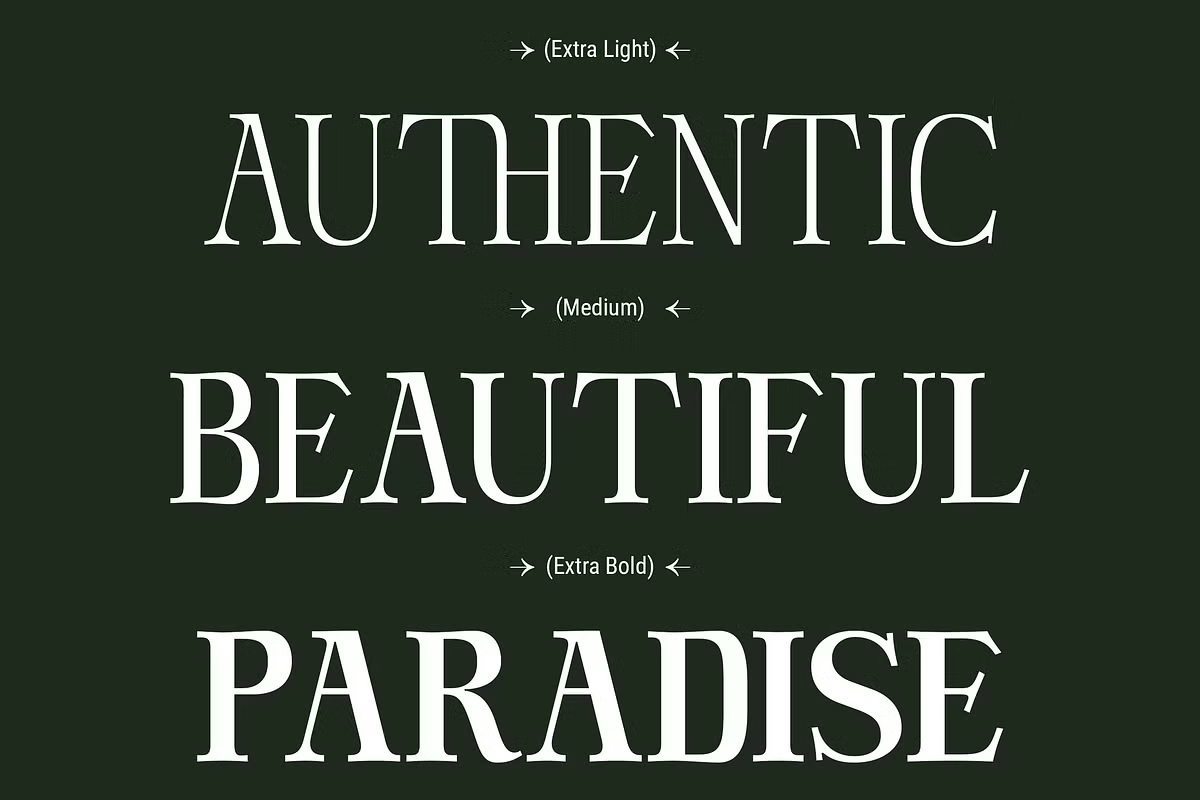
DT Hebrinks Font
DT Hebrinks is a charming and graceful serif font, crafted with precision and dedication. Inspired by the idea of “new beginnings,” this typeface embodies quality and elegance, the result of a meticulous and time-intensive design process.
With its meaningful name and versatile character, DT Hebrinks adapts seamlessly to a wide range of design projects, making it a top choice for creatives. Elevate your innovative concepts with this distinctive font and explore a fresh approach to typography!